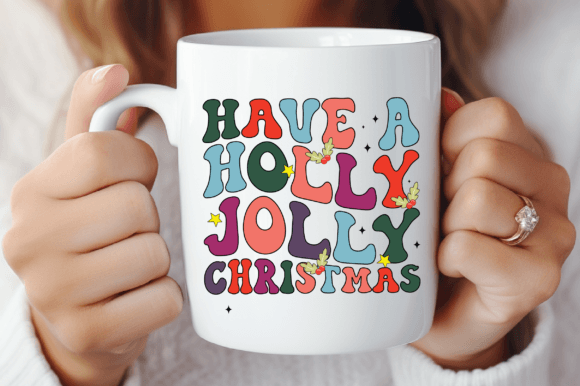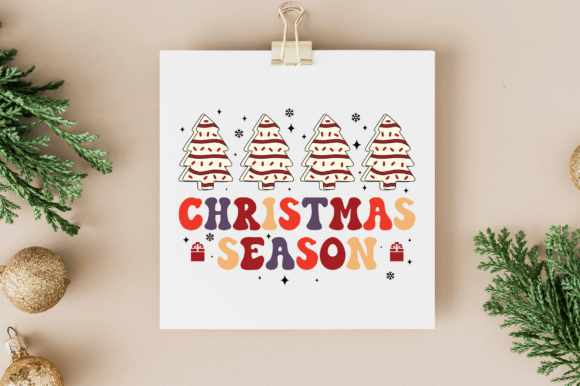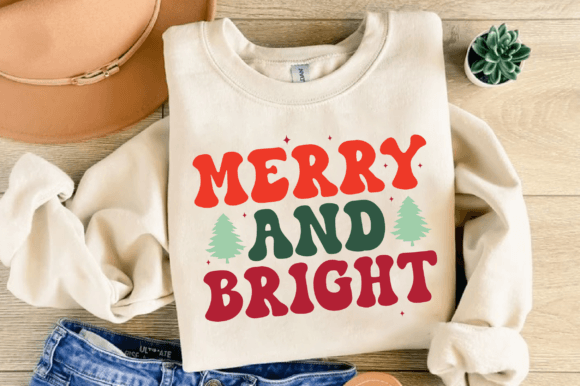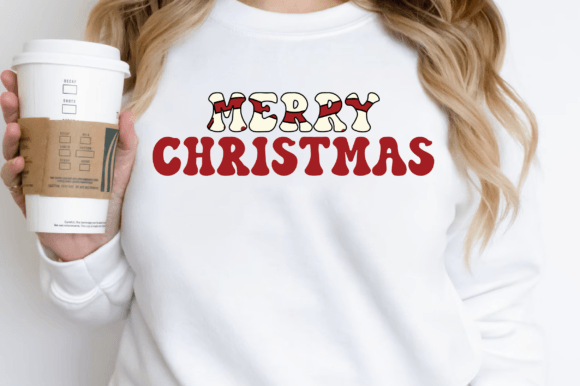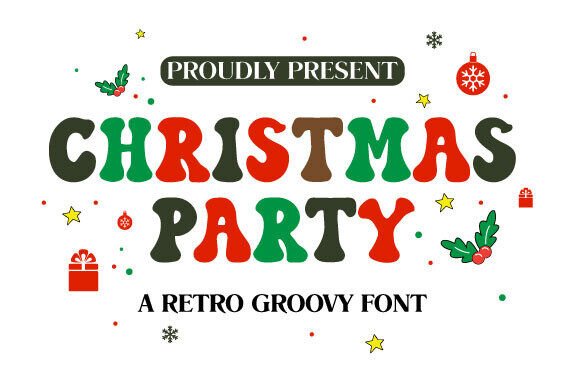
Introducing the Festive Christmas Party Font: Add a Touch of Retro Charm to Your Holiday Designs
Are you looking for a font that captures the playful and festive spirit of the holiday season? Look no further than the Christmas Party font! This adorable retro-style font is perfect for adding a touch of nostalgia and fun to your holiday designs, whether you’re working on a Christmas card, a festive poster, or a seasonal craft project.
What Makes the Christmas Party Font So Special?
The Christmas Party font is a standout for several reasons. First, its playful shape is sure to bring a smile to anyone’s face. The typography is carefully crafted to evoke a sense of nostalgia and whimsy, making it perfect for holiday designs that need a touch of personality. Additionally, the font features clear and crisp text, which makes it easy to read and understand. This combination of playfulness and legibility makes the Christmas Party font an exceptional choice for designers and crafters.
Perfect for Holidays, Festivals, and Fun Projects
Whether you’re working on a Christmas-themed project, a festive Easter design, or a fun Fourth of July craft, the Christmas Party font is the perfect choice. Its versatility and charm make it suitable for a wide range of holiday and festival designs, including:
- Christmas cards and invitations
- Holiday posters and flyers
- Festive craft projects, such as DIY decorations and gift tags
- Easter egg designs and spring-themed crafts
- Fourth of July and summer-themed designs
Why Designers and Crafters Love the Christmas Party Font
Designers and crafters love the Christmas Party font for several reasons:
- High-quality design: The font is carefully crafted to provide a high-quality design that’s both visually appealing and easy to read.
- Versatile: The Christmas Party font can be used for a wide range of projects, from holiday designs to fun crafts and DIY projects.
- Unique: The font’s playful and retro design sets it apart from more traditional fonts, making it perfect for designers and crafters who want to add a touch of personality to their work.
- Use it for headings: The Christmas Party font is perfect for headings and titles, where its playful and festive design can really shine.
- Experiment with colors: The Christmas Party font looks great in a range of colors, from bright and bold to pastel and subtle.
- Have fun: Most importantly, have fun with the Christmas Party font! Its playful design is sure to inspire your creativity and bring a touch of festive fun to your designs.